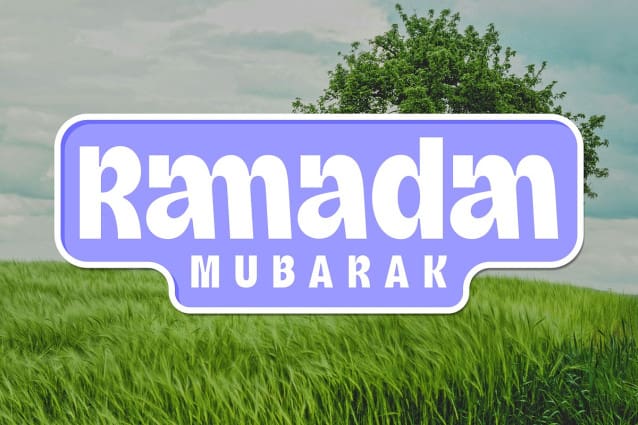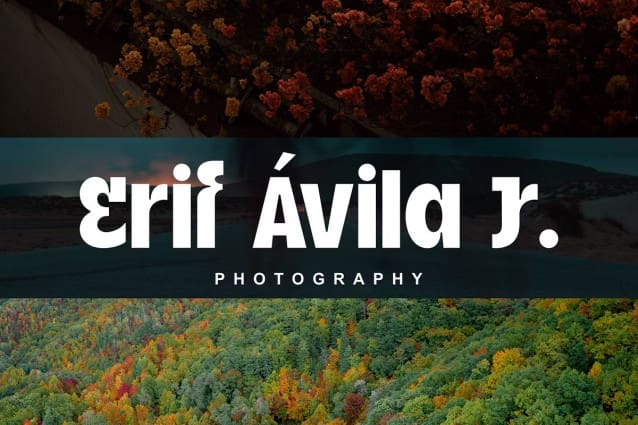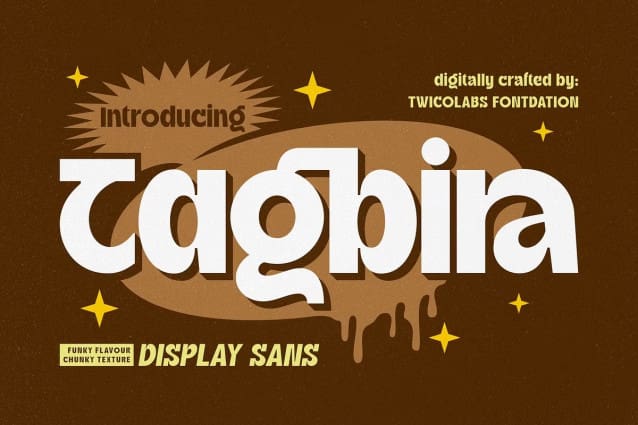
Tagbira Font
Tagbira Font, this chunky and bold sans serif is set to capture both classic and modern feel. Digitally crafted with high attention to details (smooth lines and curves), you won’t regret it. Suits best for designs that need a punch-to-the-face feels, such as logo/branding, packaging, poster, quote design, headline, shirt design, etc.